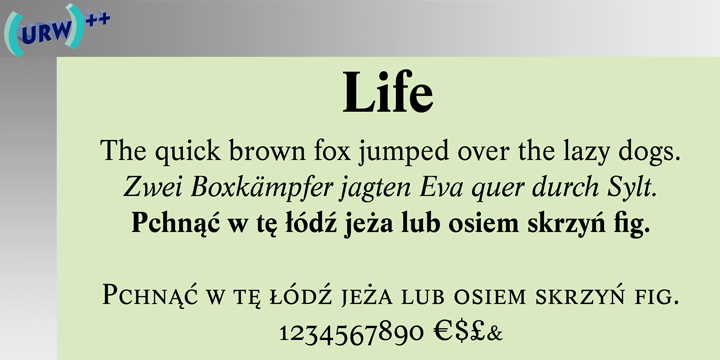
Life Font is perfect for wellness branding, healthcare organization identity, lifestyle magazine typography, motivational poster design, life coaching materials, pharmaceutical packaging, medical practice signage, and inspirational content creation. This vitally energetic typeface excels in projects requiring positive energy and life-affirming messaging where health meets hopeful design communication.
What makes Life Font exciting is its vibrant embodiment of vitality and positive energy through carefully crafted letterforms that radiate optimism and life-enhancing qualities. The font features dynamic characters with flowing curves and balanced proportions that convey growth, renewal, and the celebration of human potential. Its uplifting character makes it perfect for brands and organizations dedicated to improving lives and promoting health, wellness, and personal development.
Life Font family includes multiple weights and energetic variations that enhance its positive appeal while providing design flexibility for diverse wellness applications. The family typically offers light, regular, medium, semibold, and bold weights, along with inspiring alternates, wellness symbols, and life-affirming ornaments that complement health and lifestyle design themes perfectly.
Whether you're developing healthcare system branding, creating wellness product packaging, or designing motivational content materials, Life Font Free Download provides the perfect life-enhancing solution for projects celebrating human potential and well-being. This font's positive energy and life-affirming character make it essential for brands connecting with audiences seeking health, happiness, and personal growth.
The dynamically crafted letterforms and positive flow of Life Font create immediate emotional connections that inspire hope and encourage healthy lifestyle choices while maintaining excellent readability across all applications. Its distinctive life-celebrating personality and wellness symbolism make it an invaluable tool for designers working with healthcare, wellness, and personal development brands. Download Life Font today and infuse your creative projects with the positive power of life-affirming typography that perfectly captures the essence of vitality, growth, and human potential.